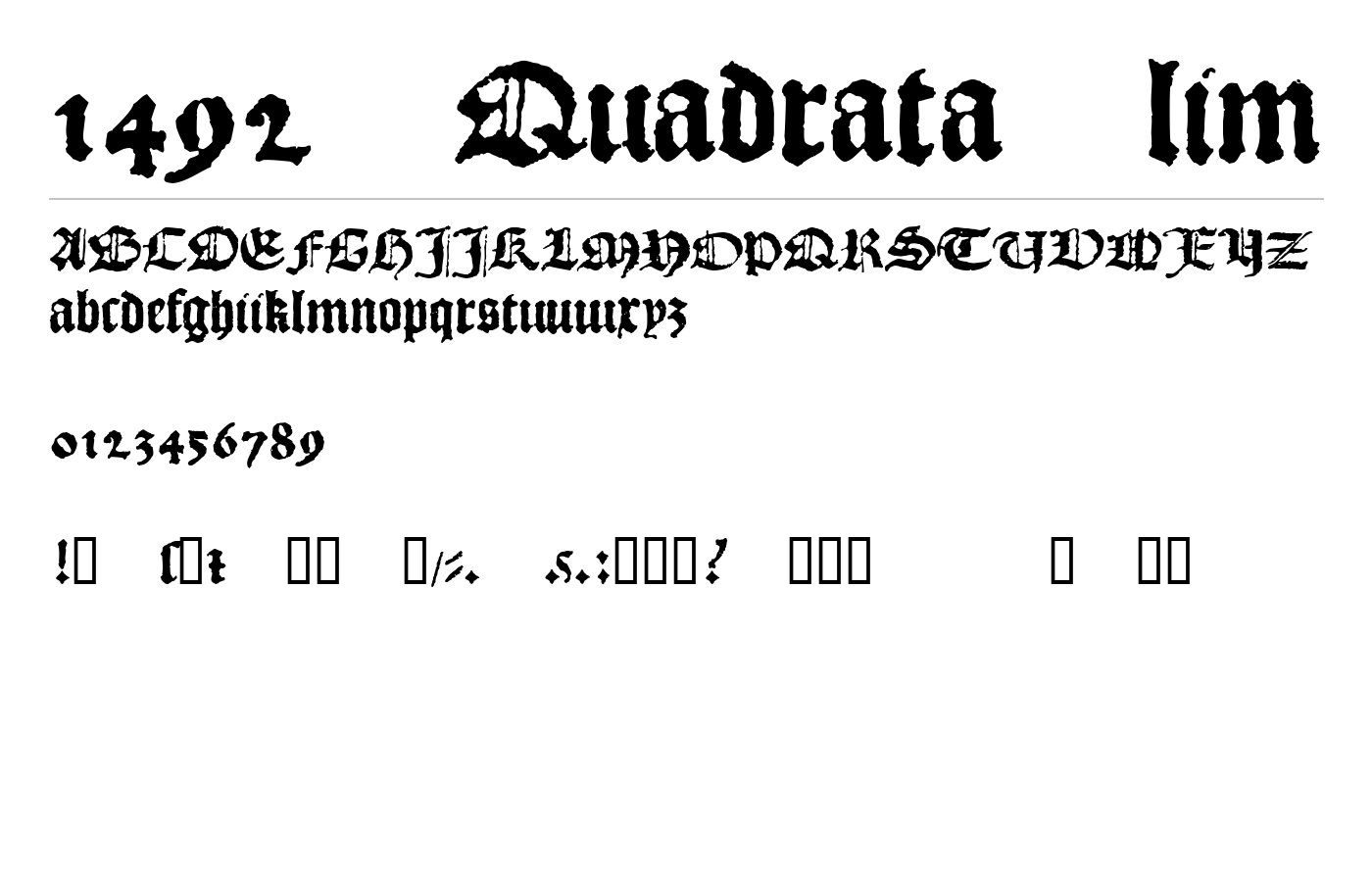
1492_Quadrata_lim is a blackletter-style serif font characterized by its bold, narrow letterforms with strong vertical strokes and decorative serifs. It carries a historic, Gothic feel with intricate details in both uppercase and lowercase letters, suitable for designs seeking a medieval or old-world aesthetic. This font works best for headlines, logos, and branding that aim to evoke tradition, formality, and ornate craftsmanship.
1492_Quadrata_lim Font
About 1492_Quadrata_lim Font